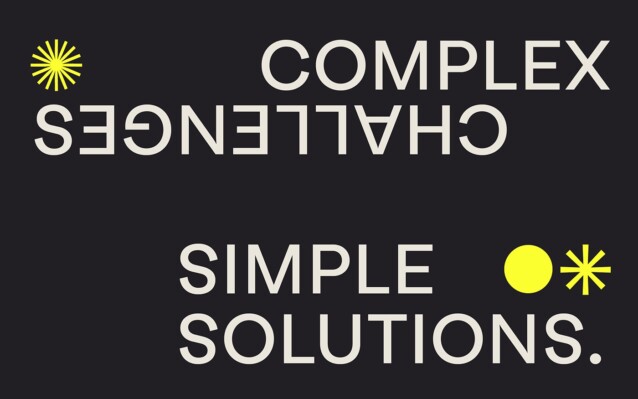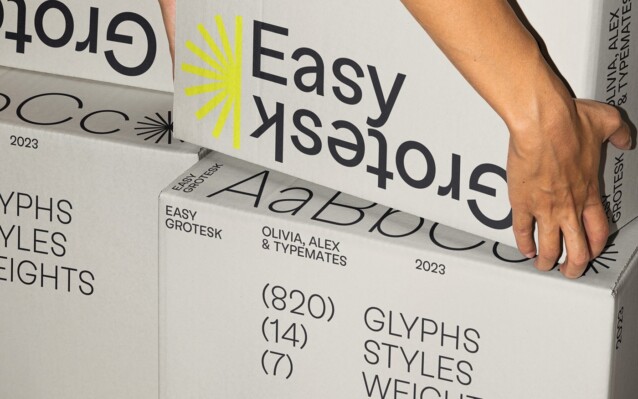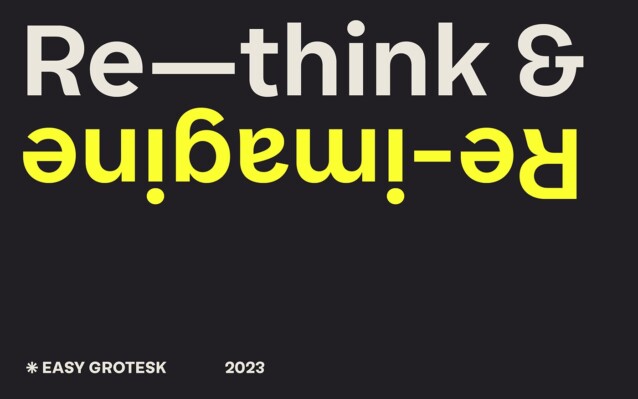
Easy Grotesk Font Family
Easy Grotesk Font is a cool and authentic sans-serif font family. Made from font designer named TypeMates Fonts. It may follow a standard neo-grotesque model, but it plays with the principles. Where, ordinarily, the lower parts of a letter are a little larger to make it feel more stable, Easy is dynamic: the top heavy, almost upside down s and signature a are only a few of the details that bring playful character to typography.
Like most TypeMates fonts, Easy Grotesk covers almost all the languages that use the Latin alphabet and is packed with plenty of typographic features. Along with Tabular Lining and Oldstyle Figures, its OpenType features include a wide range of alternates (a simplified a and g, a distinctive G and k, and a tailed l for extra legibility) and plenty of typographic extras: arrows, case-sensitive forms, and symbols. On top of that, the Variable Font implementation of Easy Grotesk opens up additional ways to create motion graphics.